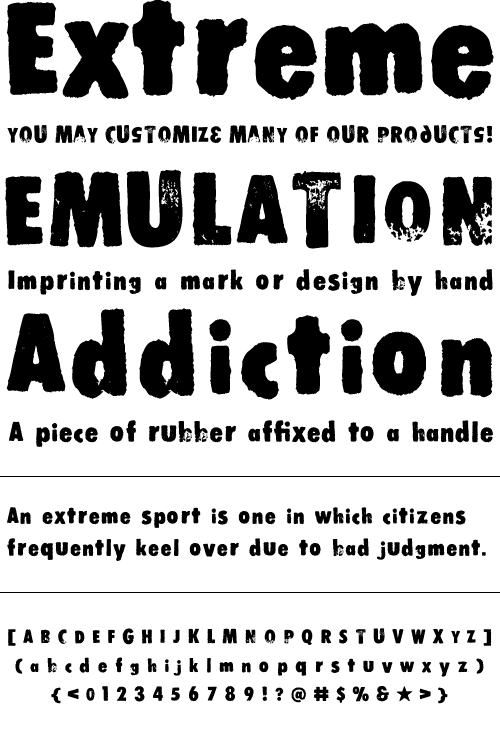
Stomper
Everyone loves a rubber stamp font! Stomper has been seen everywhere from magazine and TV ads to websites.
This new version includes lowercase, the original alternate version, and most punctuation and foreign characters.